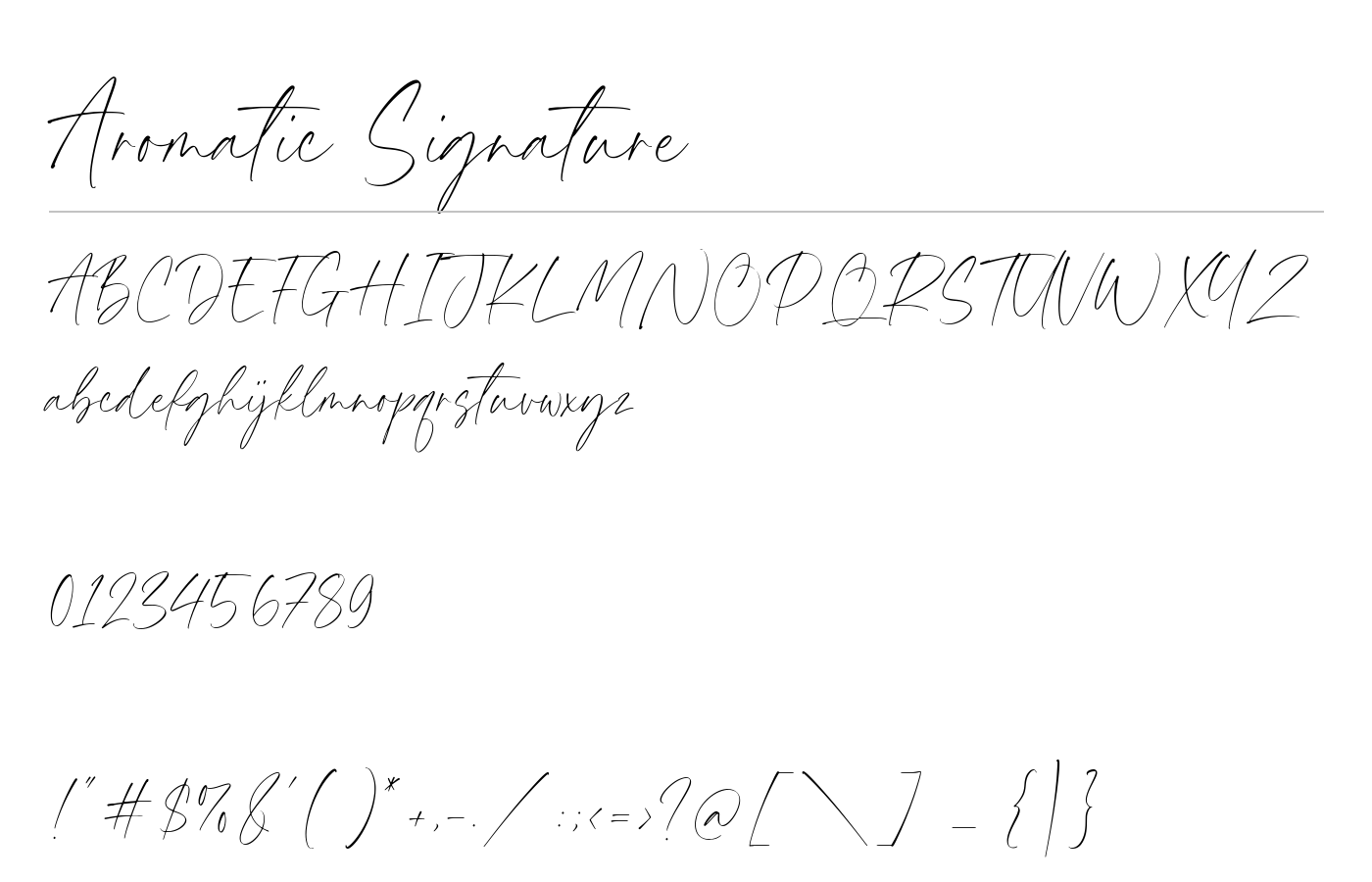
Aromatic Signature is a delicate, elegant script font with a handwritten, airy style that mimics natural, flowing penmanship. Its thin strokes and tall, slightly condensed letterforms give it a refined and sophisticated feel, making it perfect for branding, invitations, and personal signatures that require a touch of modern elegance. This font works beautifully where a light, graceful, and intimate look is desired, such as luxury packaging, fashion editorials, and stylish logos.
Aromatic Signature Font
About Aromatic Signature Font